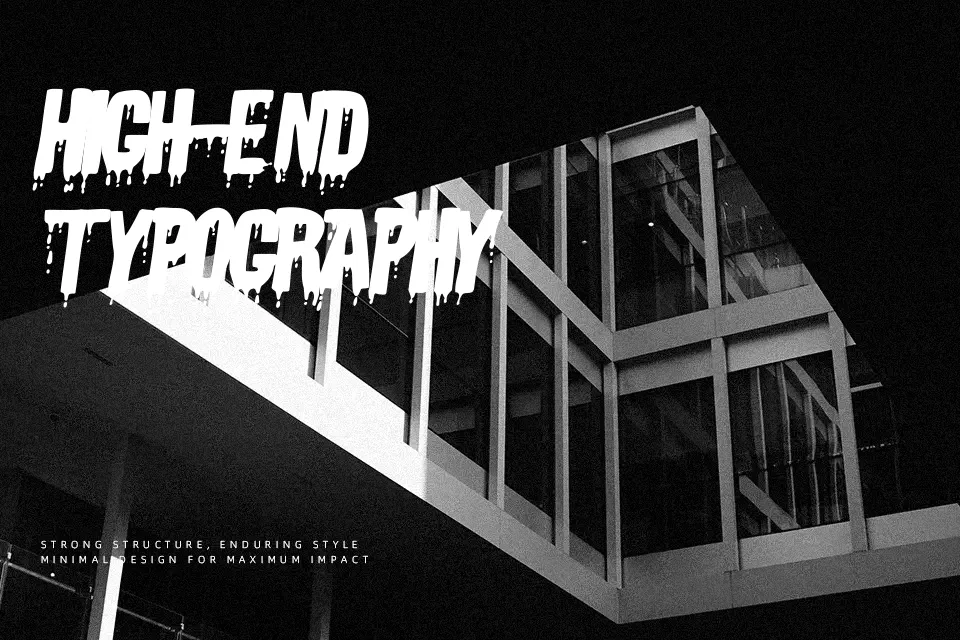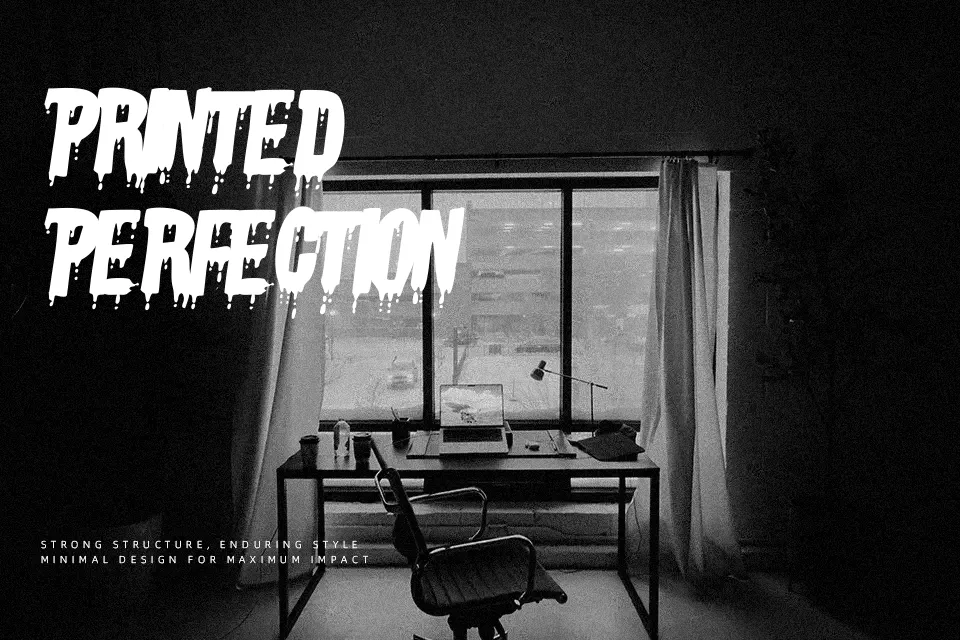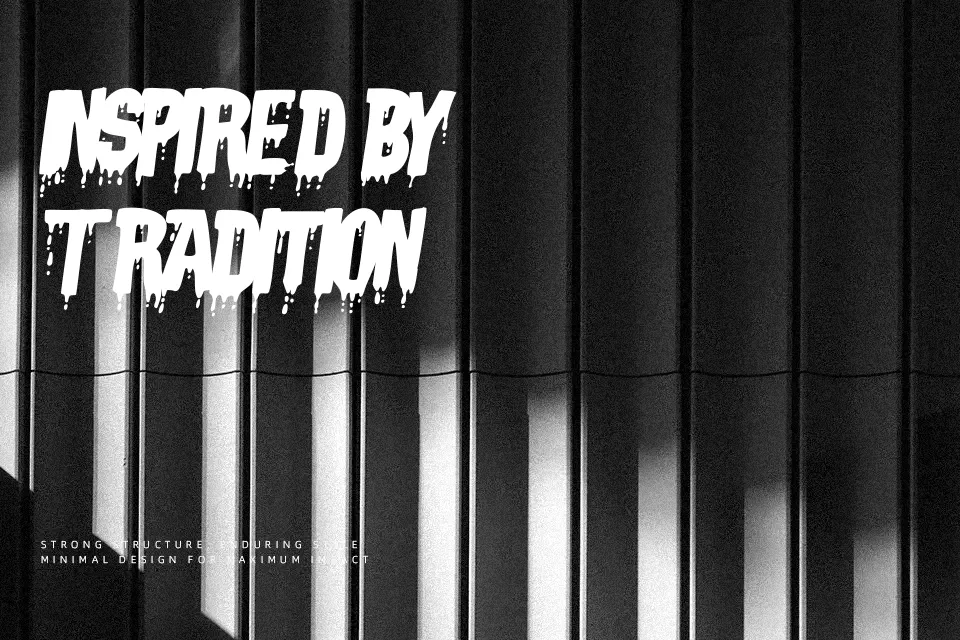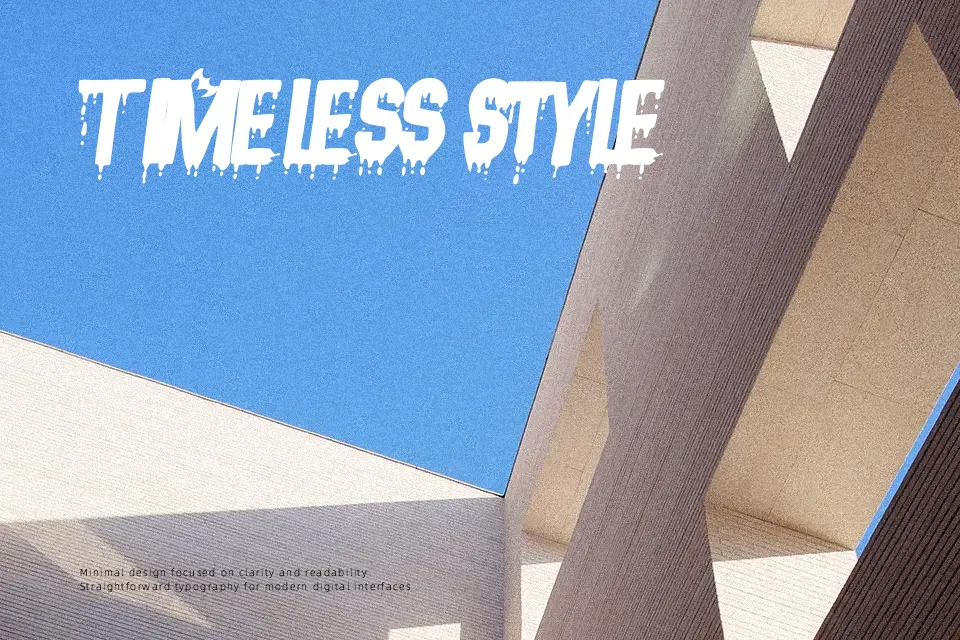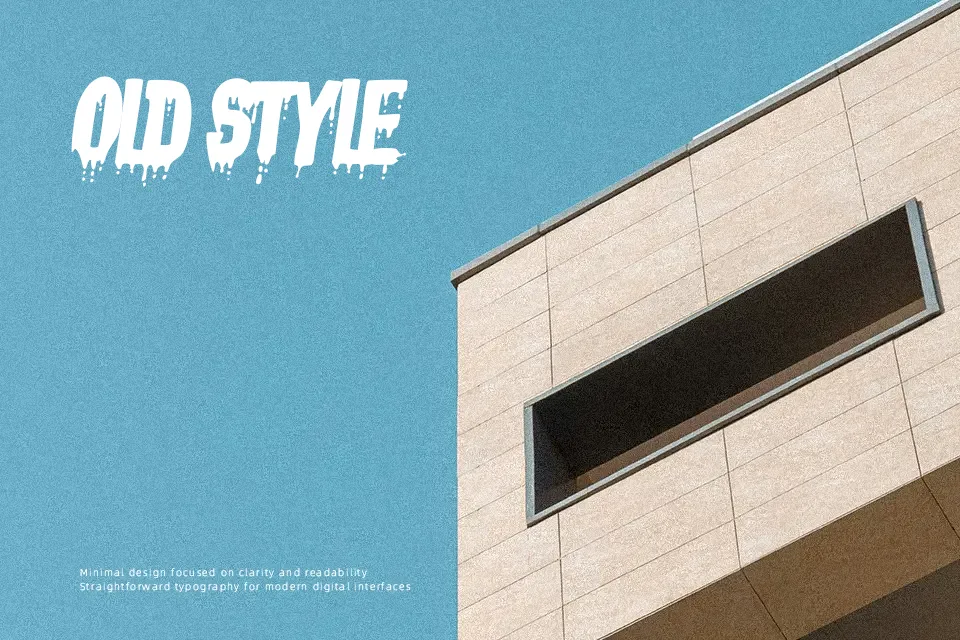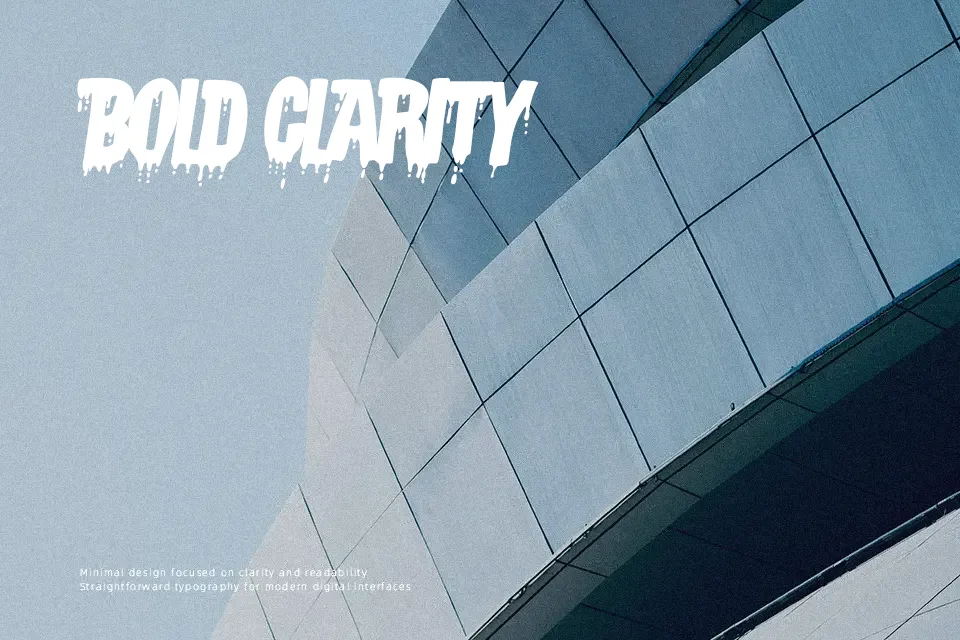
Vampyrish ABC Font
Designed by Manfred Klein
Vampyrish ABC Font relies on an aggressive oblique stance paired with melted, dripping contours along its stroke edges. Broad brush-like stems combine with jagged terminals, yielding high decorative impact across uppercase forms while maintaining open, proportional spacing. The letterforms perform with great clarity in oversized headlines and thematic title graphics. However, the organic distortion and heavy stroke weight cause dense character overlap when scaled down to small sizes. Decorative flourishes around the terminals significantly impede comfortable extended reading, making the typeface far more effective as a specialized headline instrument than a conventional body text solution.
Best For: Halloween party flyers, horror video game titles, dark metal album covers, haunted house signage
Not Ideal For: dense body text, mobile interface labels, corporate business reports, legal documentation
Perfect for film, gaming, and halloween, with a dark and decorative style.